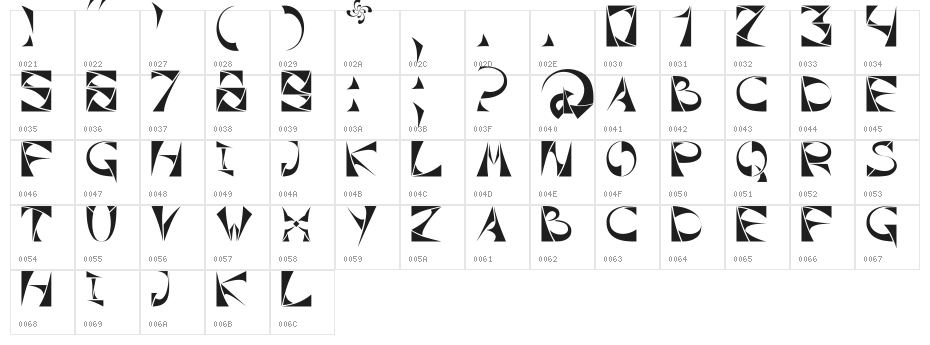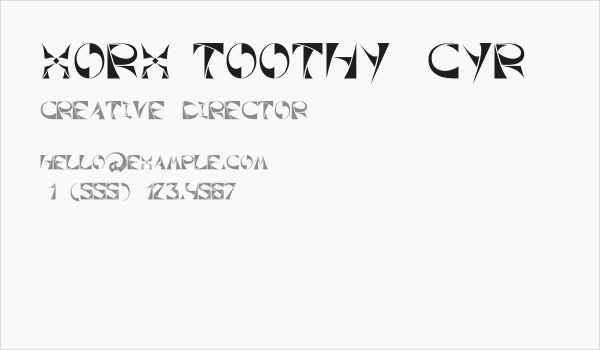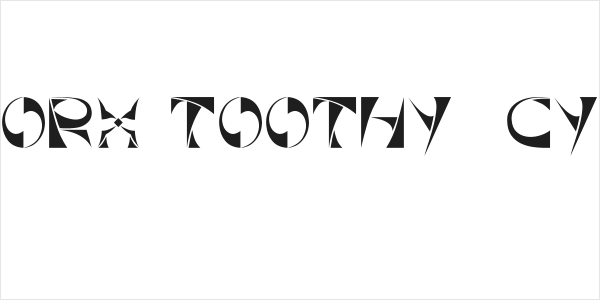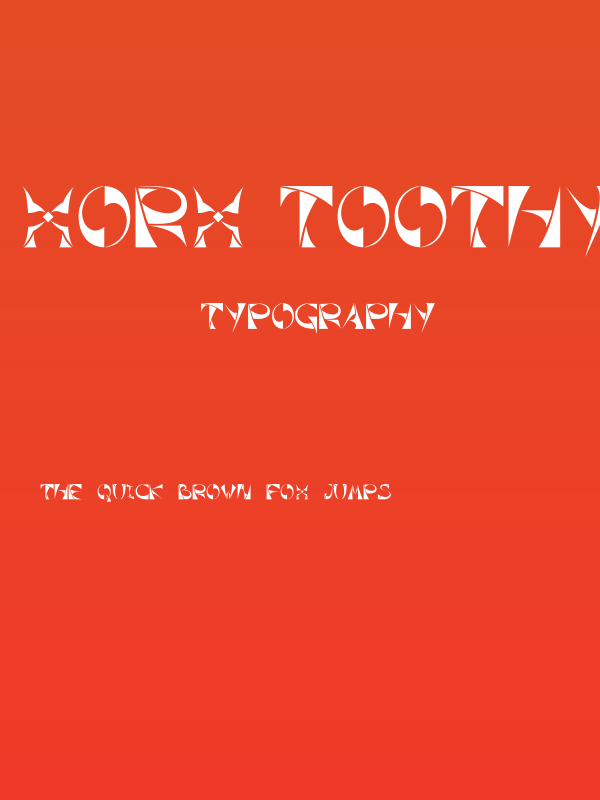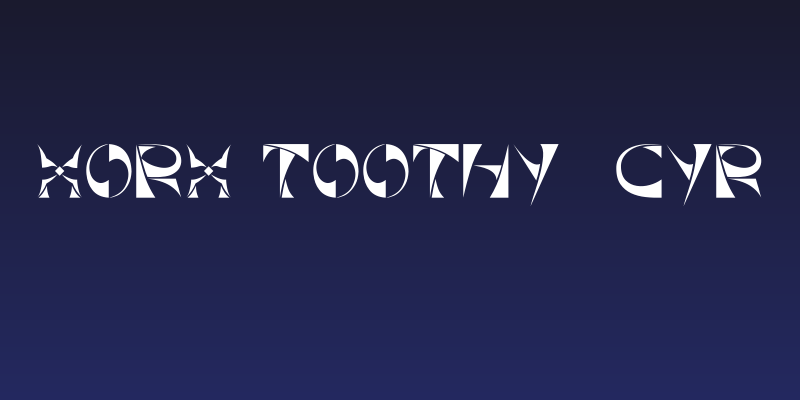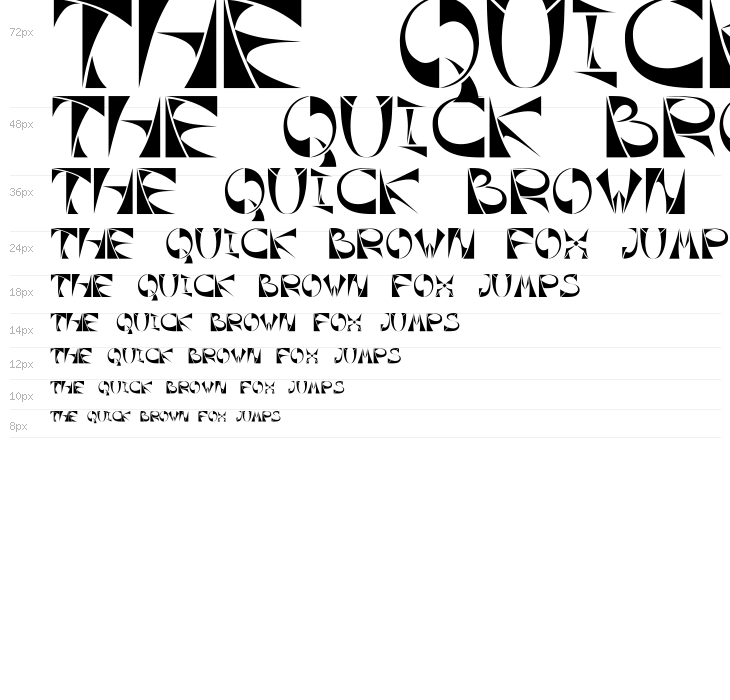
Xorx_Toothy Cyr Font
Xorx_Toothy Cyr Description
This font features a bold, angular design with sharp edges and geometric shapes that create a striking and dynamic appearance. Each character is crafted with a unique combination of curves and points, giving it a modern and edgy look. The uppercase and lowercase letters maintain a consistent style, while the numbers and special characters add a playful yet sophisticated touch. The font's high contrast and distinct shapes make it ideal for attention-grabbing designs. Its artistic flair and unconventional style make it suitable for creative projects that require a bold statement.
| Proposed Projects | Ideal for branding, posters, album covers, and any project needing a bold, artistic touch. |